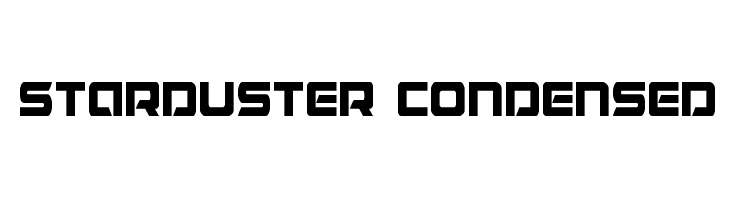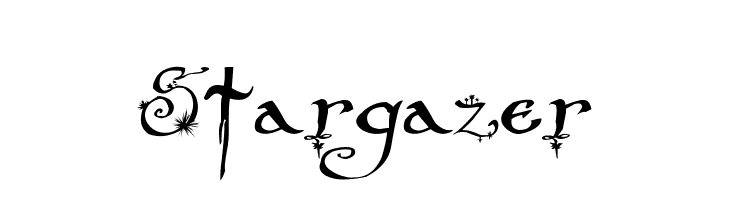
A whimsical and decorative font with celestial embellishments and swirling accents.
A modern, decorative font with characters enclosed in circles and intersected by abstract lines.
A bold, futuristic font with sharp angles and geometric shapes.
A bold, italicized font with a futuristic and angular design.
A bold, italic font with sharp, angular forms and a futuristic style.
A futuristic, geometric hollow font with bold outlines and sharp edges.
A bold, hollow, and geometric font with a futuristic and modern style.
A bold, futuristic font with sharp angles and geometric design.
A bold, geometric font with a futuristic and industrial style.
A lively, handwritten script font with elegant connections and playful loops.